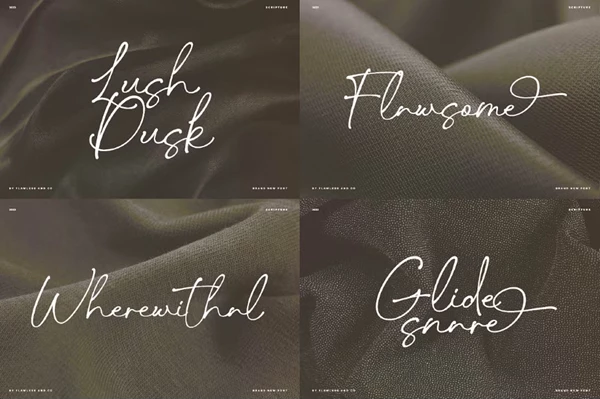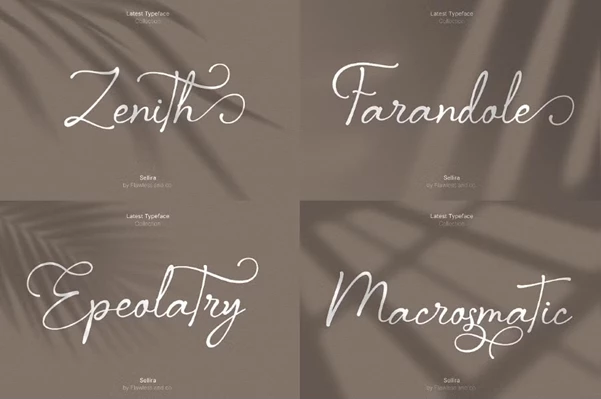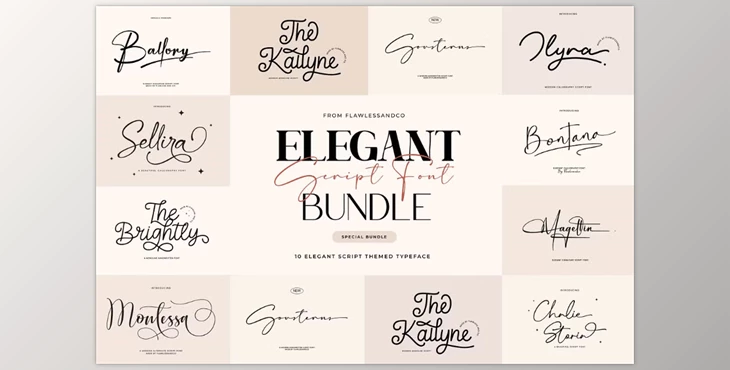
Elegant Script Font Bundle - 10 Premium Typefaces:
Elegant Script Font Bundle is a stunning selection of ten sophisticated premium typefaces. With Based on cursive styles- including signature, handwritten, and calligraphy for branding, logos, and even visual content to be used on Canva or Procreate, this bundle enables each and every one of its users to add modern elegance and sophistication to their designs. This collection was designed to provide every creative project with a wide range of inspiration to draw upon and enhance their designs.
"Elegant Script Font Bundle - 10 Premium Typefaces" Samples: